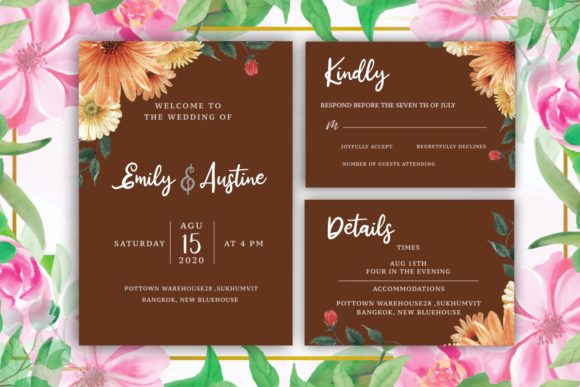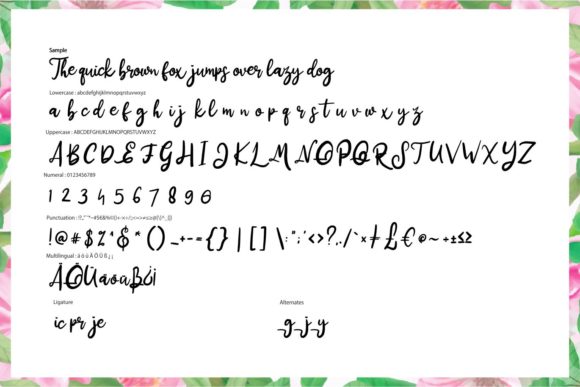
The Ultimate Guide to Distrik Font: Adding a Cool Vibe to Your Designs
Have you ever been in the middle of a design project, and suddenly, you’re stuck on finding the perfect font? I recall a recent experience where I was working on a romantic getaway brochure, and my client specifically asked for a font that exudes a playful yet sophisticated feel. After scouring through numerous font libraries, I stumbled upon Distrik Font, and it instantly became the star of the show! In this article, we’ll dive into the world of Distrik Font, exploring its unique features, how to use it on various platforms, and some fantastic alternatives.
A Personal Review of Distrik Font
What I Love About Distrik Font ✨
- ✨ Unique and playful handwritten style with a cool vibe
- ✅ Romantic and dazzling look, perfect for creative projects
- ✅ Extensive language support, making it versatile for global designs
- ⚠️ Limited use in formal or corporate designs, as it may come across as too playful
- ⚠️ Some characters may not work well in all contexts, requiring manual adjustments
Distrik Font comes with a range of OpenType features, including stylistic alternates and glyphs. To access these features:
The Story Behind Distrik Font
Distrik Font was crafted with love by a young designer who wanted to create a font that captures the essence of playfulness and romance. Inspired by street art and handwritten notes, Distrik Font quickly gained popularity among designers and crafters.
| Font Name | Distrik Font |
| Author | Vunira |
| Q: Does Distrik Font support non-English languages? | A: Yes, Distrik Font has extensive language support, making it versatile for global designs. |